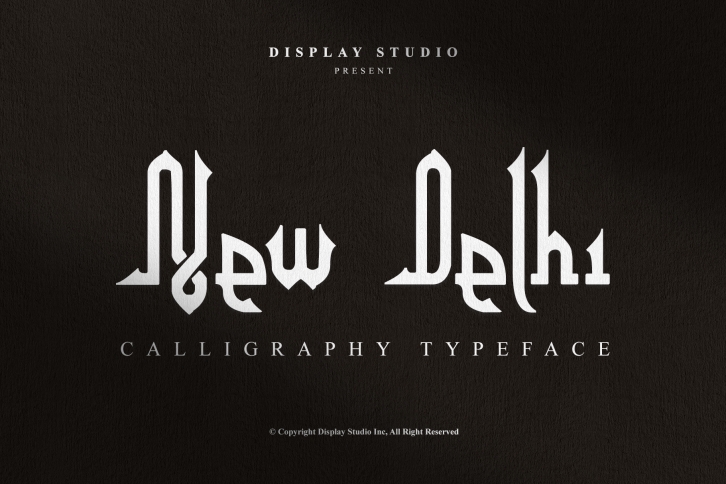
Introducing our new release, New Delhi Calligraphy Font. This typeset is perfect for brand logo, invitations, greeting card, or even any kind of project. With multilingual feature and style variations, this typeface would further enhance the aestethical aspect of your work.